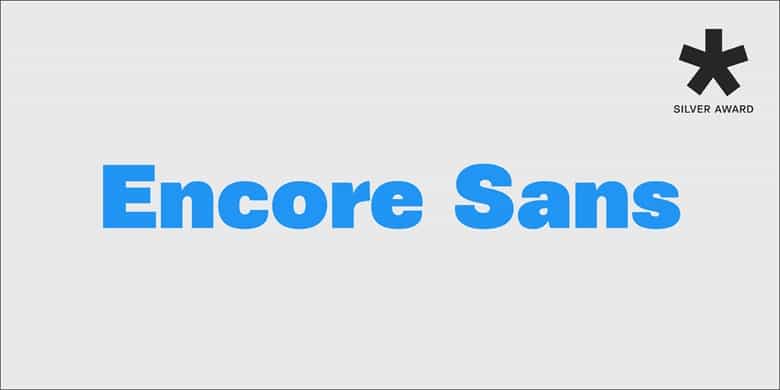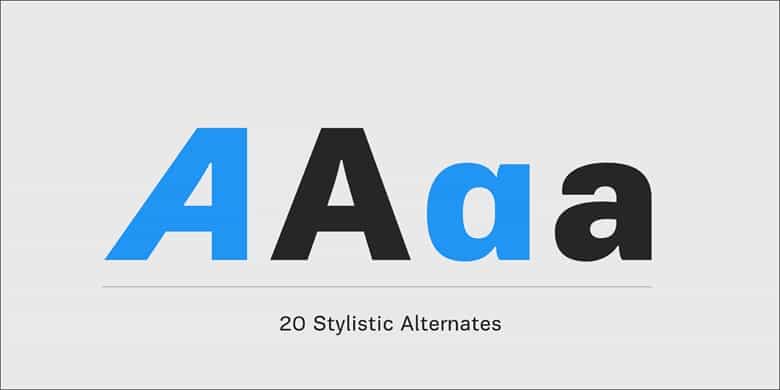
PF Encore Sans is a sans serif font family, therefore is best suited for corporate communications. A typefaces that delivers both functionality and that aesthetic appeal. Such round features as slightly concave line edges, set a rather sleek look, and contribute to an effective combination of classical and high-tech styles. Encore Sans Pro has three international awards and distinctions consisting of a Silver of the european ED Awards 2010.